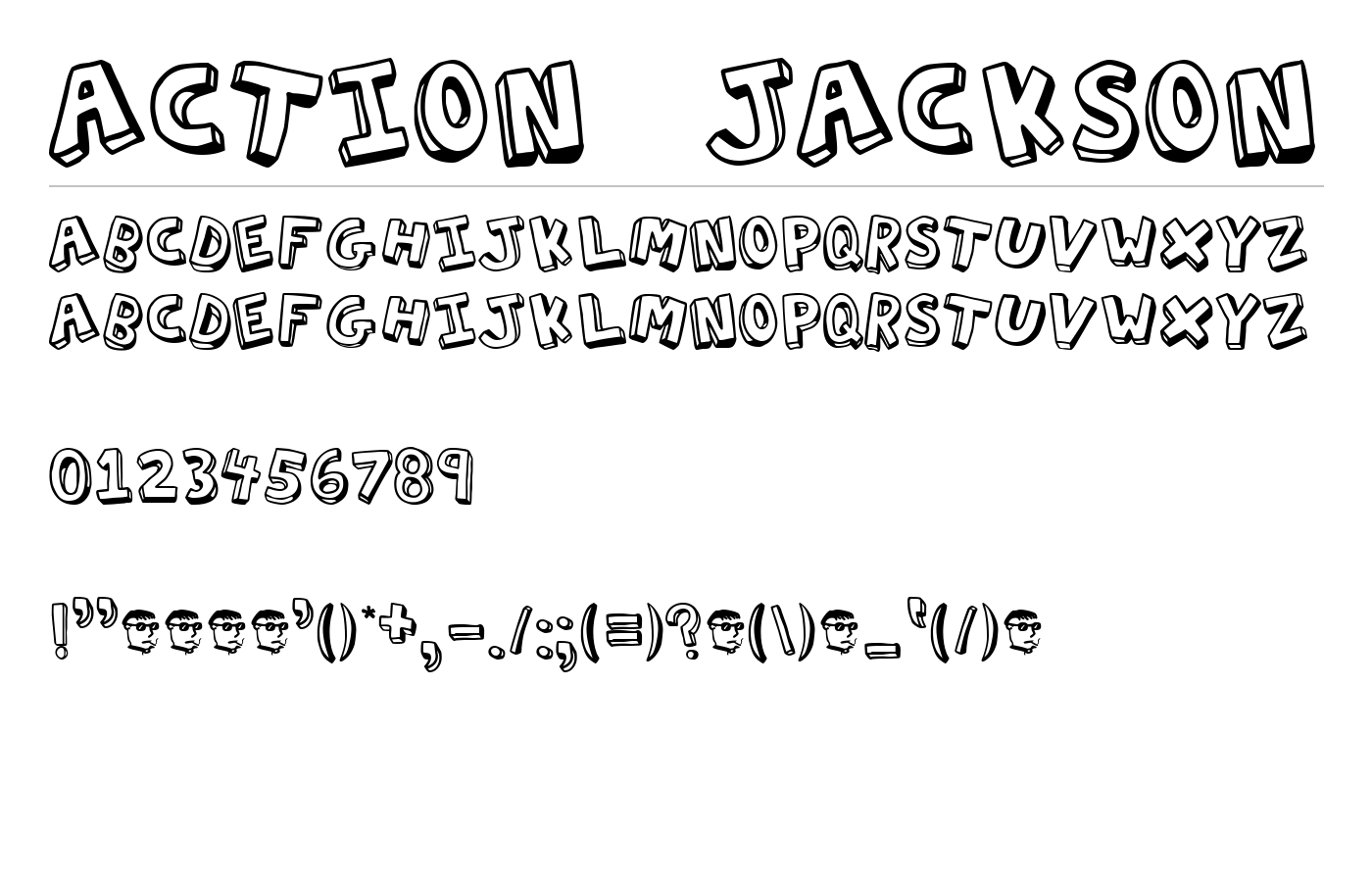
Action Jackson is a playful, bold display font with a hand-drawn, comic book style featuring chunky, three-dimensional block letters with irregular outlines. Its lively, casual personality makes it ideal for fun, energetic branding, posters, and children’s content where a touch of whimsy and creativity is desired.
Action Jackson Font
About Action Jackson Font
| Font family | Action Jackson Font |
| Designer | Tom Murphy 7 |